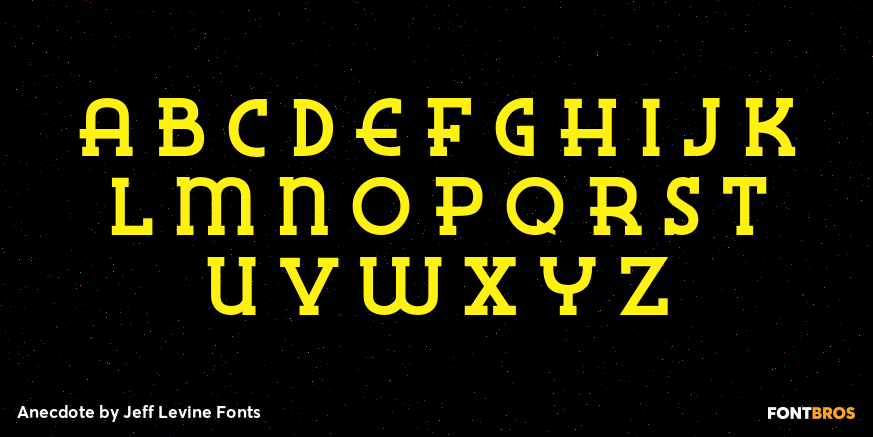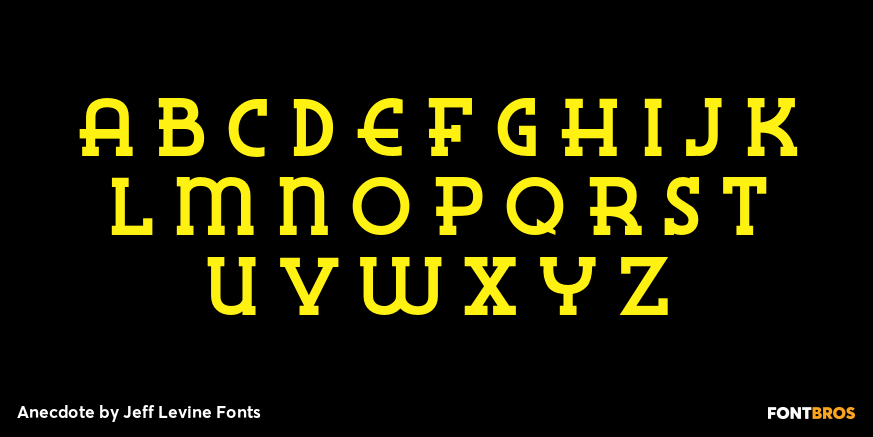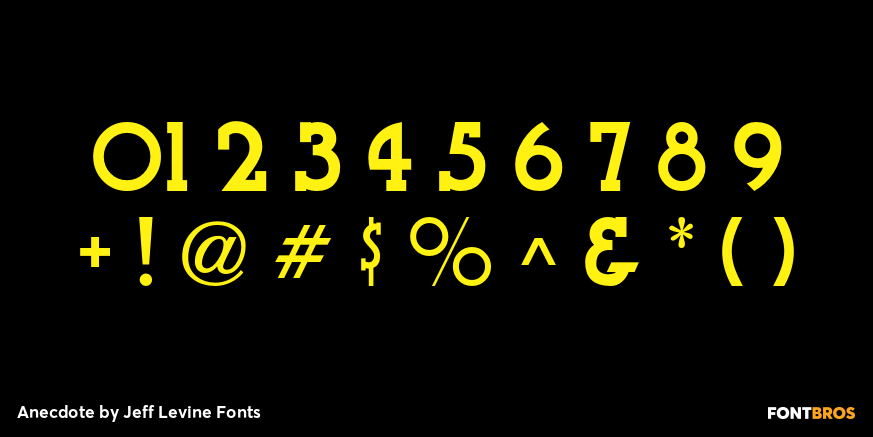
Anecdote
Anecdote JNL gives a serif treatment to Haute Couture JNL, which in turn was modeled after die-cut cardboard letters and numbers used for displays, signs and show cards.